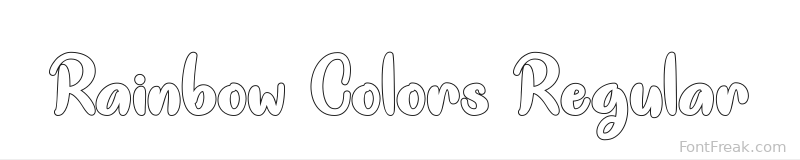
Rainbow Colors Regular
Rainbow Colors Regular by Misti Hammers is a delightful decorative font that exudes a playful and vibrant aesthetic. This font is characterized by its whimsical, flowing lines that create a sense of movement and joy. With a moderate stroke weight and a consistent contrast throughout the letters, Rainbow Colors Regular features rounded edges and smooth curves, making it visually appealing and approachable. The spacing is well-balanced, allowing for easy readability while maintaining its decorative charm.
This font shines in various creative applications. It is perfect for designing eye-catching wedding invitations that convey a sense of festivity and celebration. Additionally, it works wonderfully for children's book covers, where its playful style can capture the imagination of young readers. Rainbow Colors Regular is also an excellent choice for restaurant menus, particularly for establishments that want to convey a fun and casual atmosphere. Graphic designers can leverage this font in social media graphics and promotional materials, as its vibrant character is sure to attract attention and engage audiences.
The target audience for this font includes graphic designers, small business owners, and content creators looking to add a splash of color and personality to their projects. Whether you are crafting marketing materials or personal stationery, Rainbow Colors Regular can enhance your designs with its cheerful and lively essence.
What truly makes Rainbow Colors Regular stand out is its ability to evoke a sense of happiness and warmth. This font invites viewers to engage with the content, making it a delightful choice for a wide range of creative projects. For those interested, the Rainbow Colors Regular font free download offers an opportunity to incorporate this unique typeface into your work effortlessly.